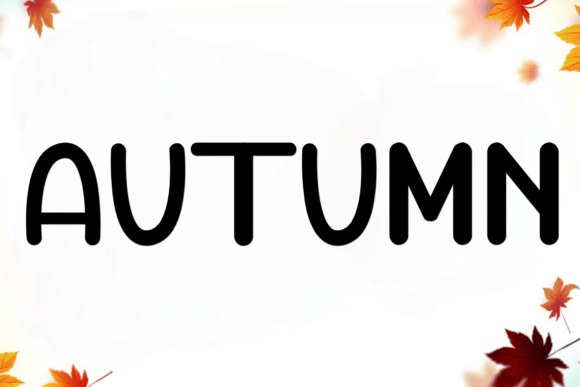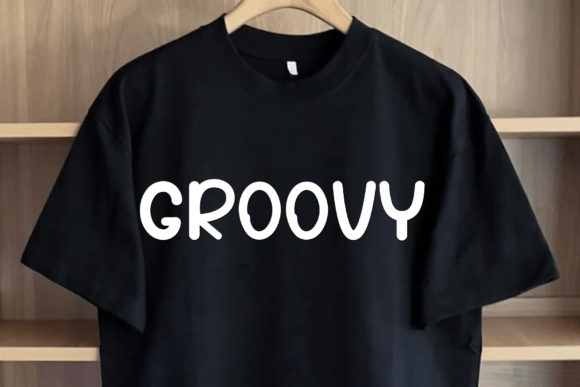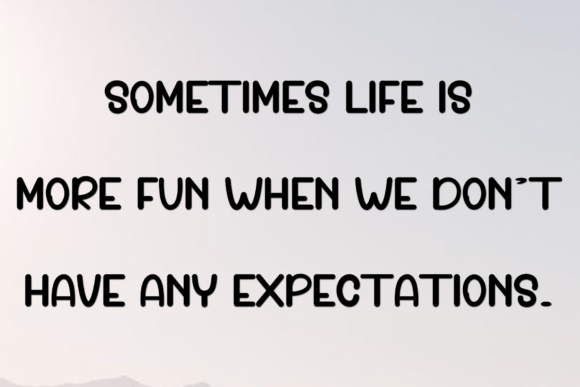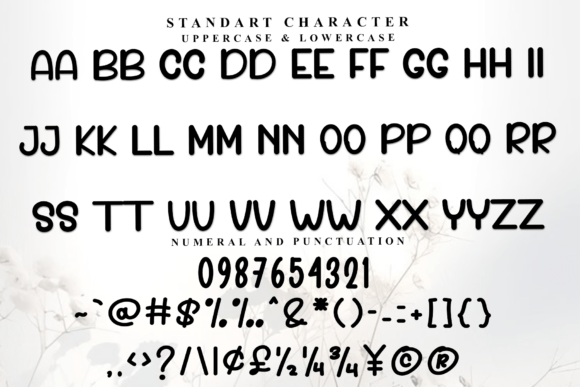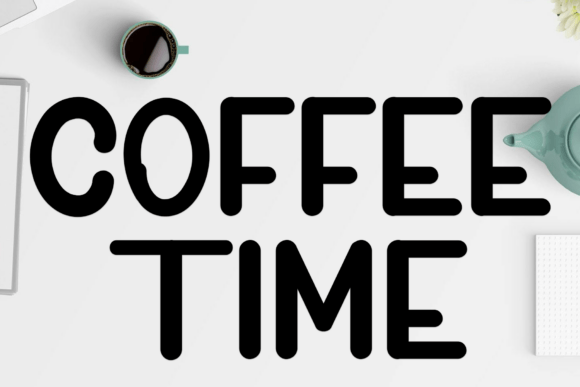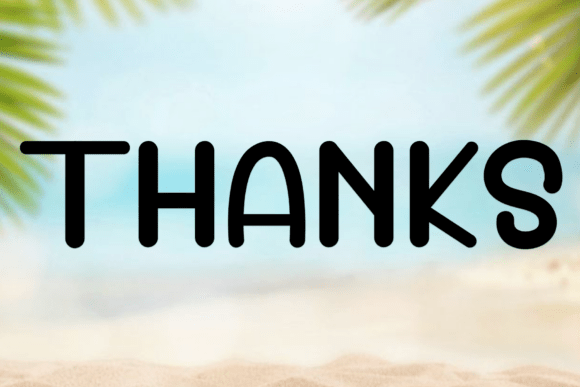
Introducing Body Font: The Soft, Unique Touch for Your Creative Projects
In the world of typography, a font can make or break a design. It’s the foundation upon which your creative vision is built, and it can elevate your work from ordinary to extraordinary. If you’re a designer, crafter, or artist looking for a font that adds a touch of elegance and versatility to your projects, look no further than Body Font. This beautiful and eye-catching font is designed with a soft, unique touch that sets it apart from the rest.
The Distinctive Strokes of Body Font
Body Font’s distinctive strokes are what give it its special character. The font’s creator has carefully crafted each letter to have a unique feel that’s both modern and timeless. The strokes are smooth and flowing, making it perfect for a wide range of applications, from digital designs to print materials. Whether you’re working on a logo, brochure, or website, Body Font is sure to make your designs stand out.
A Versatile Font for Creative Projects
One of the best things about Body Font is its versatility. With various characters to choose from, you can use it for a wide range of creative projects, including design projects, crafts, and other artistic endeavors. The font is perfect for:
- Brochures and flyers
- Websites and social media graphics
- Stationery and invitations
- Crafts and DIY projects
The Benefits of Using Body Font
So why choose Body Font for your creative projects? Here are just a few benefits of using this beautiful font:
- Unique and eye-catching design: Body Font’s distinctive strokes and soft, unique touch make it stand out from other fonts.
- Versatility: With various characters to choose from, you can use Body Font for a wide range of creative projects.
- Ease of use: The font is easy to read and works well in both digital and print materials.
Tips for Using Body Font
Here are a few tips for getting the most out of Body Font:
- Experiment with different sizes and colors: Body Font looks great in a variety of sizes and colors, so don’t be afraid to experiment and find the perfect combination for your project.
- Pair it with other fonts: Body Font works well with other fonts, so try pairing it with a bold font for headings or a script font for added elegance.
- Use it consistently: To create a cohesive look, use Body Font consistently throughout your project.